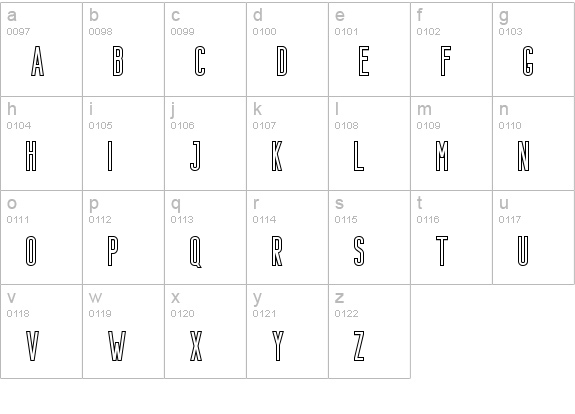
Bondie Outline font is a modern and stylish typeface that exudes elegance and sophistication. With its clean lines and geometric shapes, this font is perfect for making a bold statement in your designs. The outline style adds a touch of uniqueness and creativity to any project, making it stand out from the crowd. Whether you're creating posters, logos, or social media graphics, Bondie Outline font is sure to make a lasting impression.